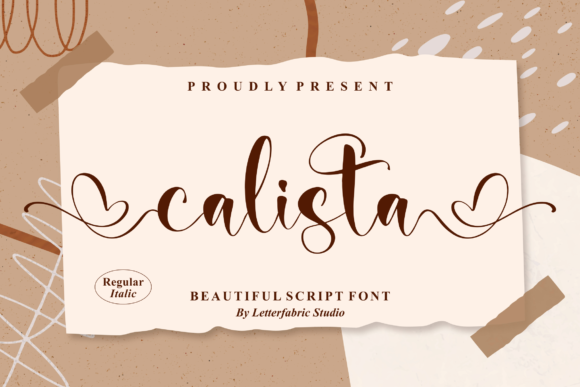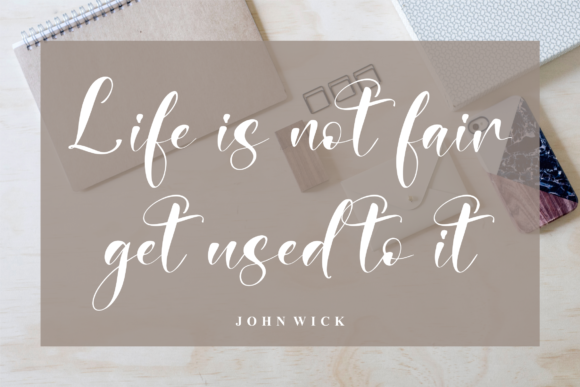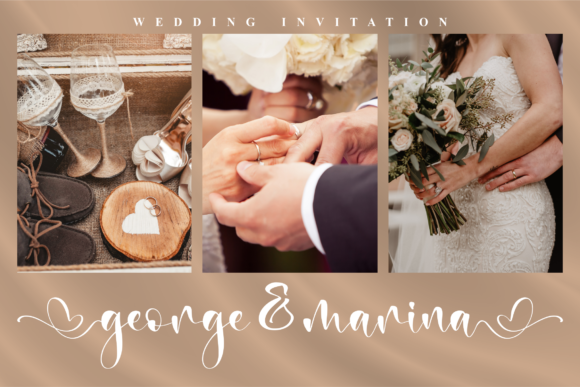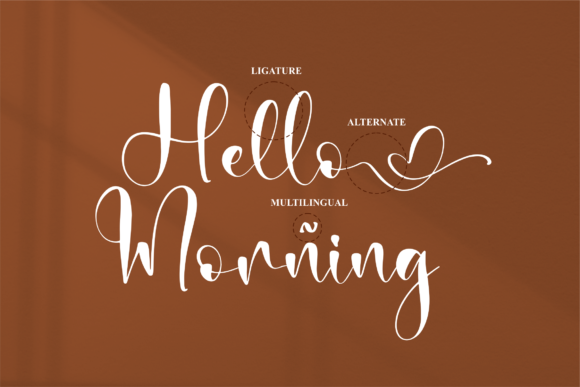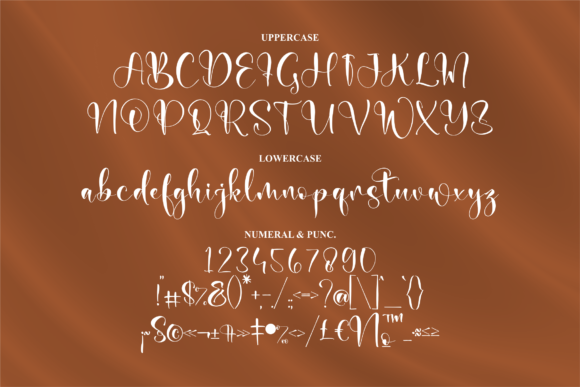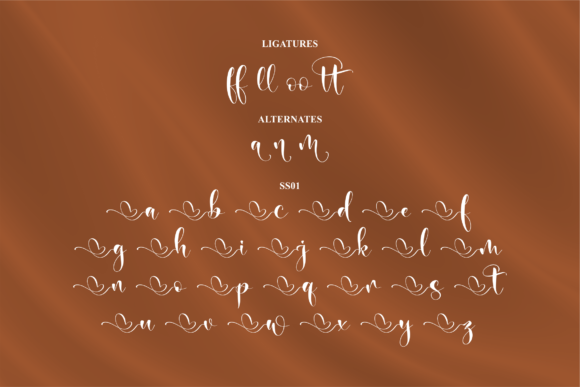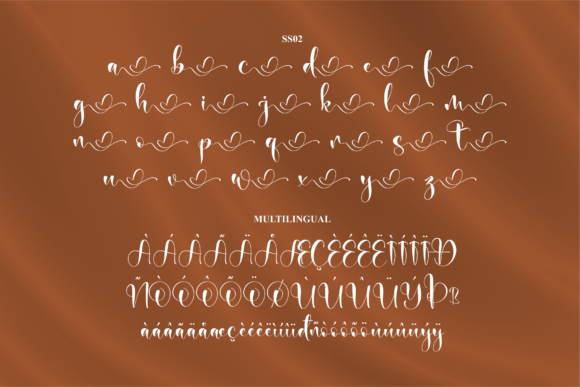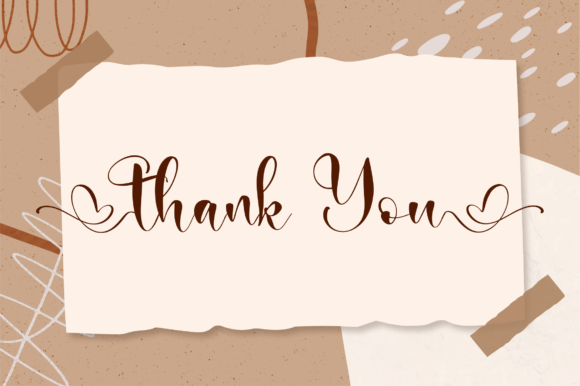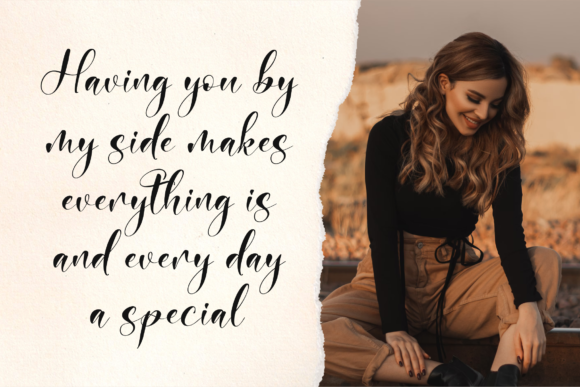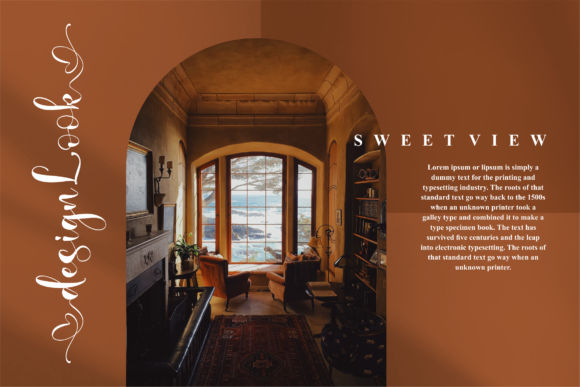
Calista Font
About Calista Font
Calista s a beautiful script font. Fall for its distinct style and use it to create gorgeous designs. This font is PUA encoded which means you can access all glyphs and swashes with ease!